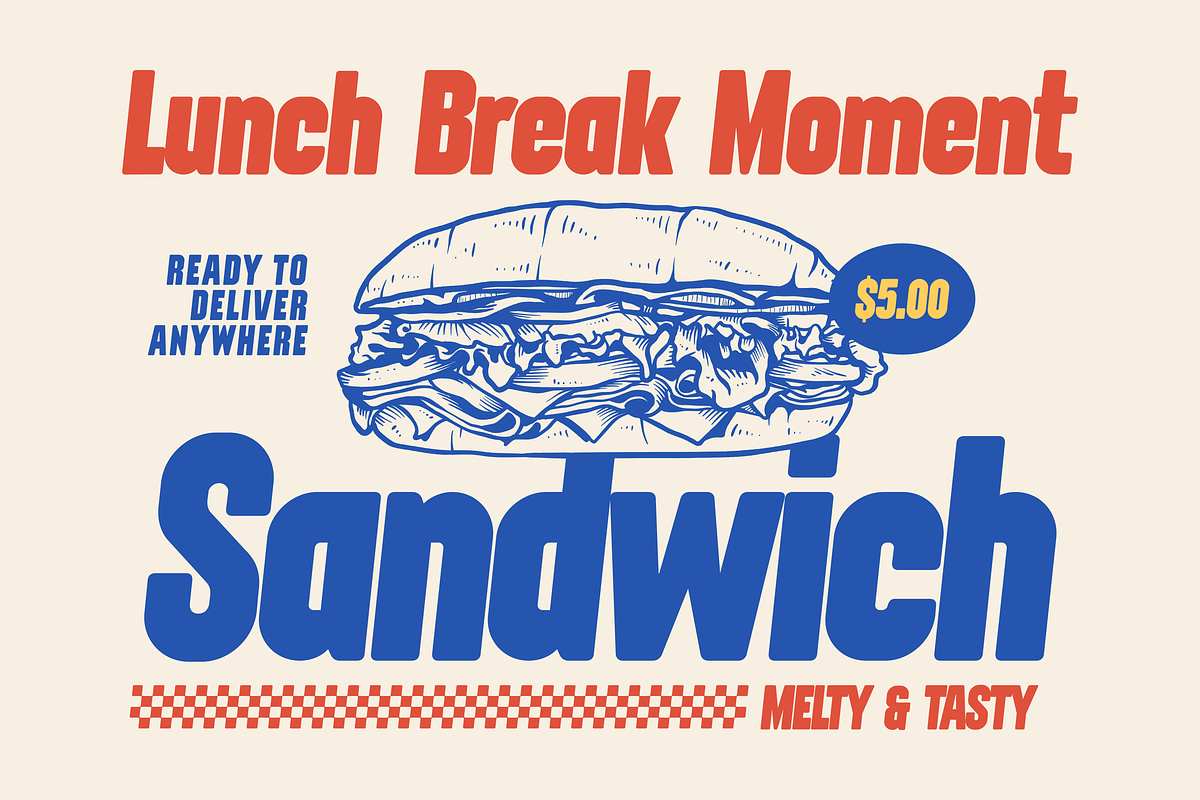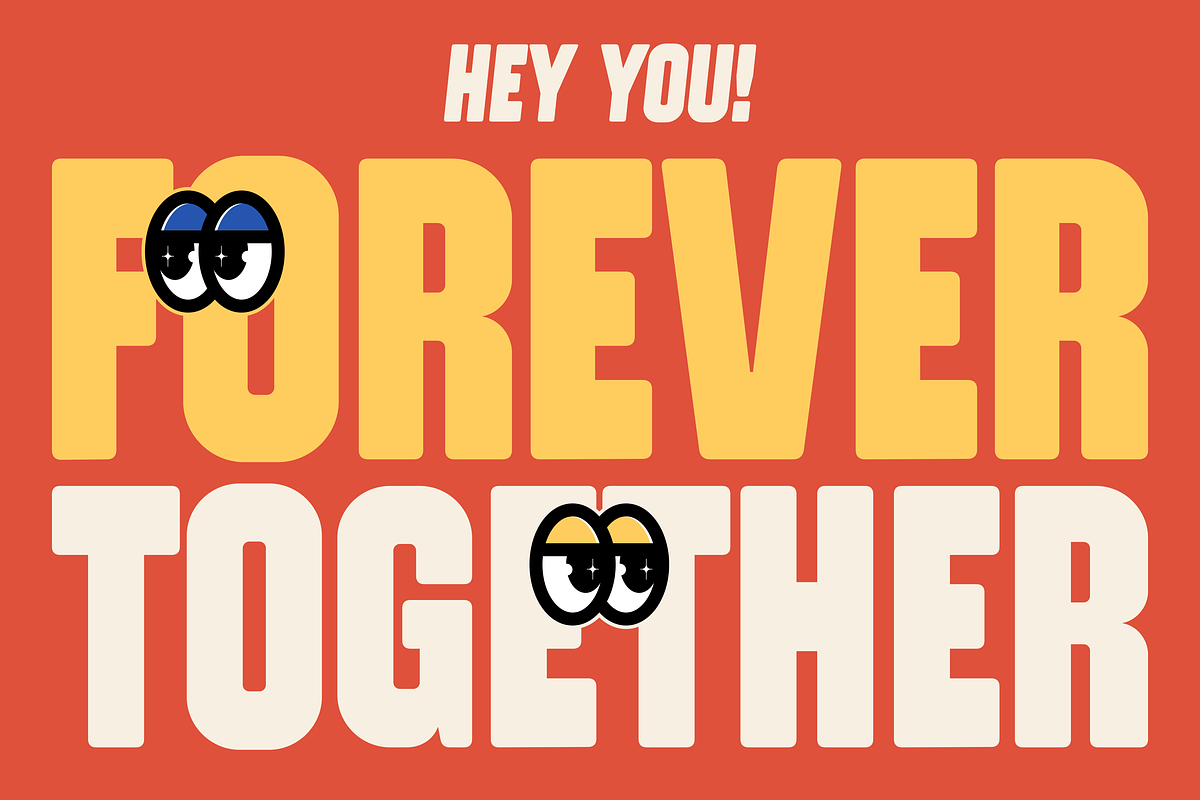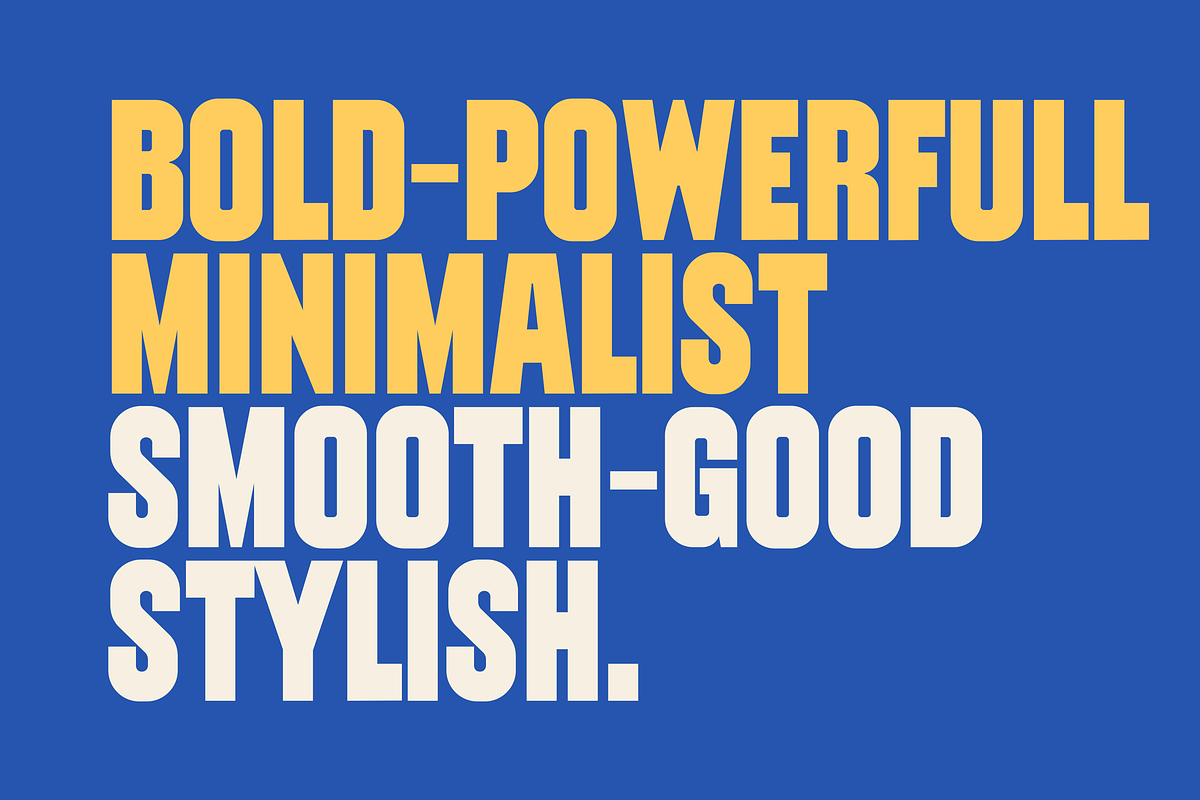
Depnoid Font
Depnoid Font is a bold headline font with 2 styles, regular and rounded, available in italic too. Dipnoid will be good to use for posters, titles, logos, headlines in large sizes.
Depnoid Headline Font Preview
This preview highlights the unique shapes and multi-height variations of the Depnoid Font.